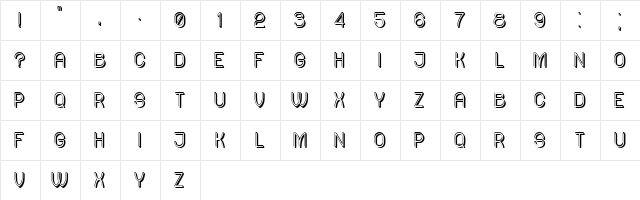
Ready Regular
Design Context for Ready Typeface
Ready is a composed and adaptable typeface that performs quietly and consistently across a wide range of design contexts.